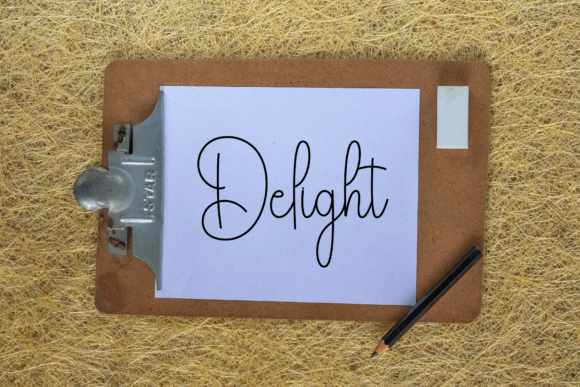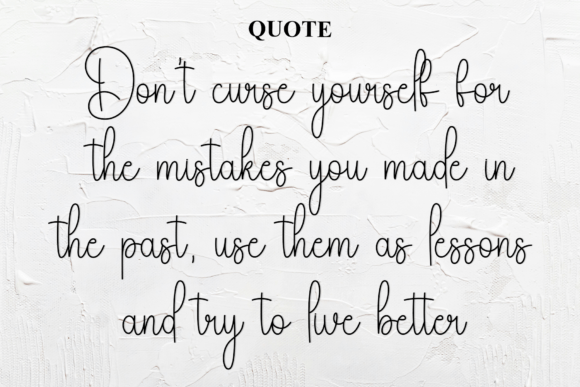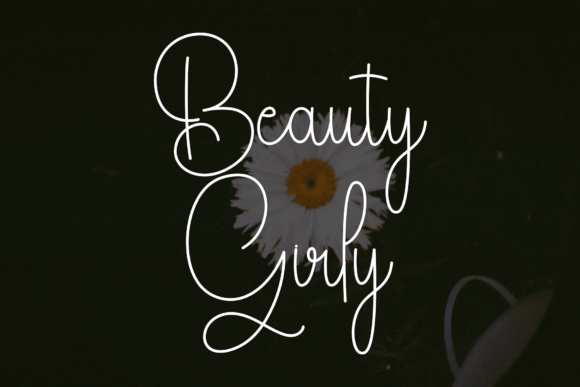
Introduction to Darling Birthday Font
As you sit down to plan your next creative project, do you ever wish you had the perfect font to capture the magic of the holiday season? For many designers, finding the right typeface can be the difference between a project that feels lackluster and one that truly shines. That’s where the Darling Birthday Font comes in – a festive and merry typeface that adds a touch of enchantment to your designs.
With its decorative elements and whimsical flair, the Darling Birthday Font is perfect for greeting cards, gift tags, and holiday-themed projects. Whether you’re working on a high-quality design or just want to add a little extra something to your free download, this font is a valuable resource that’s sure to bring a smile to your face.
And the best part? The Darling Birthday Font is PUA encoded, making it easy to access all of its amazing glyphs and ligatures with just a few clicks. So why settle for a boring, generic font when you can add a little bit of holiday magic to your designs with the Darling Birthday Font?
Key Features of Darling Birthday Font
- Unique, cursive design perfect for creative projects, especially those related to birthdays, love, and romance.
Honest Review: Darling Birthday Font
I recently stumbled upon the Darling Birthday Font while searching for a free design resource to elevate my creative project. This font caught my eye with its playful and whimsical style, making it perfect for birthday-themed designs.
Here are some of the things that work well with this font:
- ✨ High-quality design: The font is well-designed and professional, making it suitable for various design applications.
- ✨ Versatility: The font is suitable for various design projects, including social media graphics, party invitations, and more.
- ⚠️ Limited character set: The font only includes a limited set of characters, which might not be suitable for longer texts or more complex design projects.
- ⚠️ Not suitable for body text: The font is best used for headings and titles, as the character set and style may not be suitable for body text.
Overall, I’m impressed with the Darling Birthday Font’s design and versatility. While it has some limitations, it’s a great resource for designers looking to add a touch of whimsy to their creative projects.
The Darling Birthday Font is perfect for creating birthday invitations, party decorations, and other celebration-related materials. Its high-quality design and transparent background make it an ideal choice for creative projects.
Yes, the Darling Birthday Font is designed to be highly scalable and suitable for use in high-resolution designs. Its crisp, clean lines and smooth curves ensure that it looks great at any size, making it an ideal choice for designers working on high-quality creative projects.